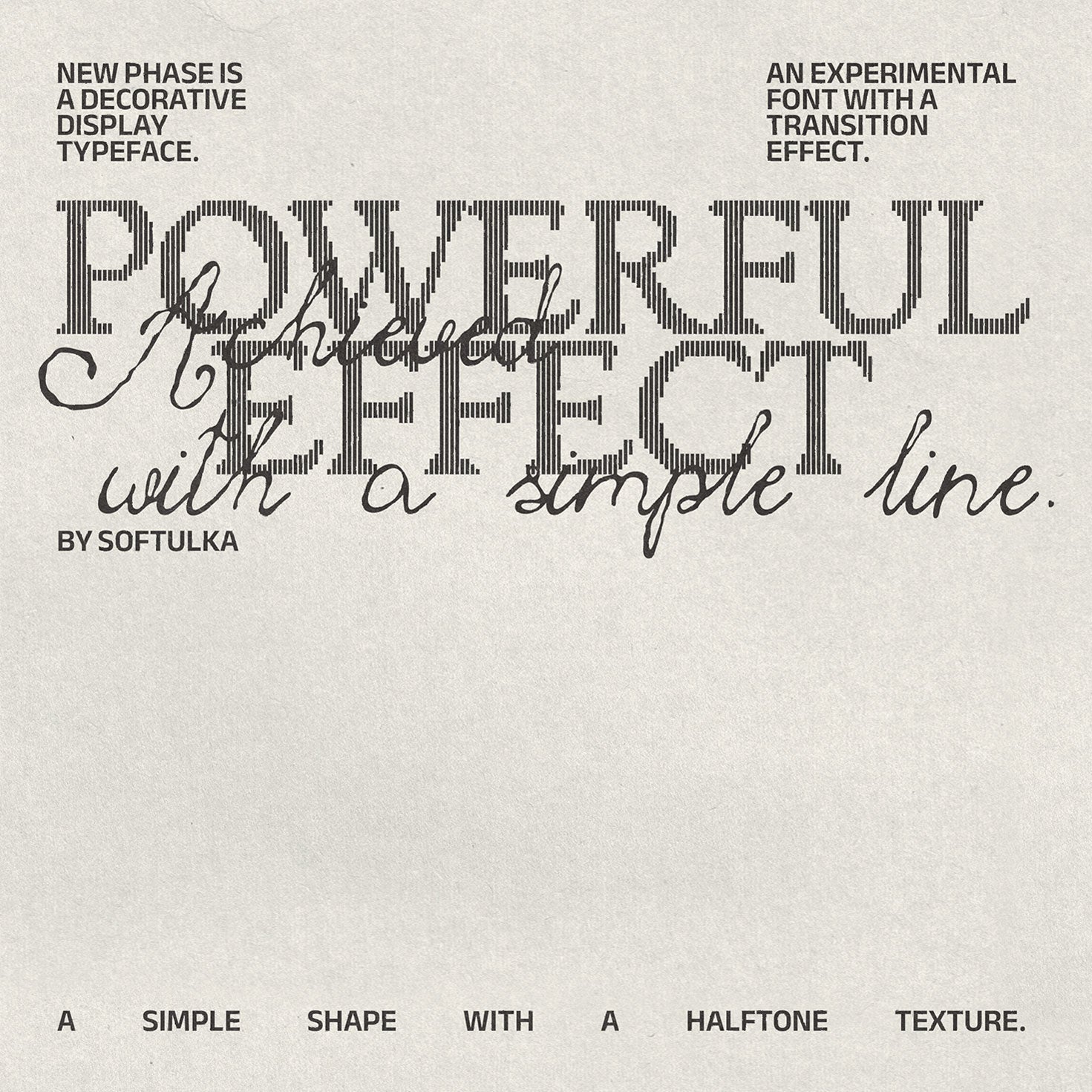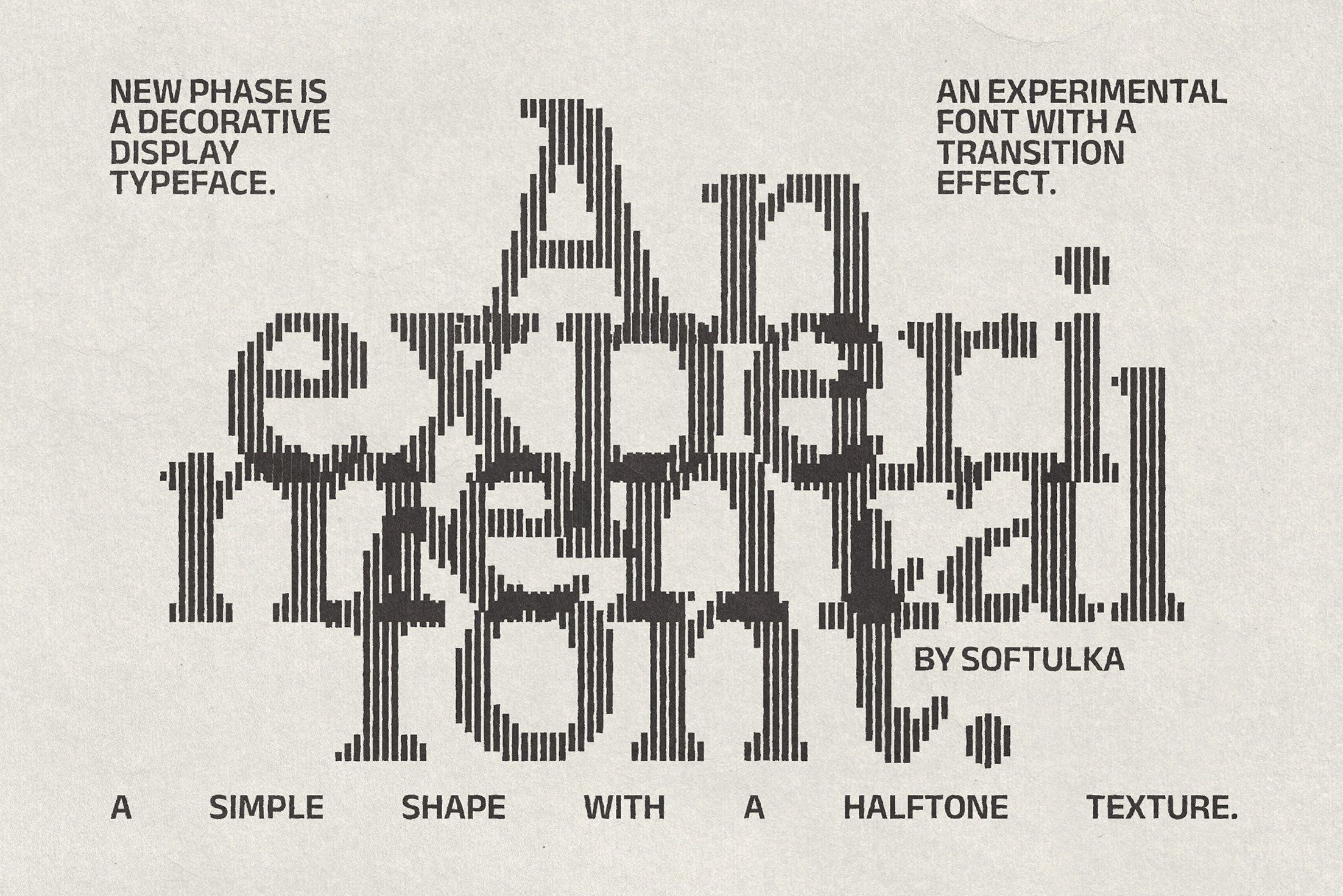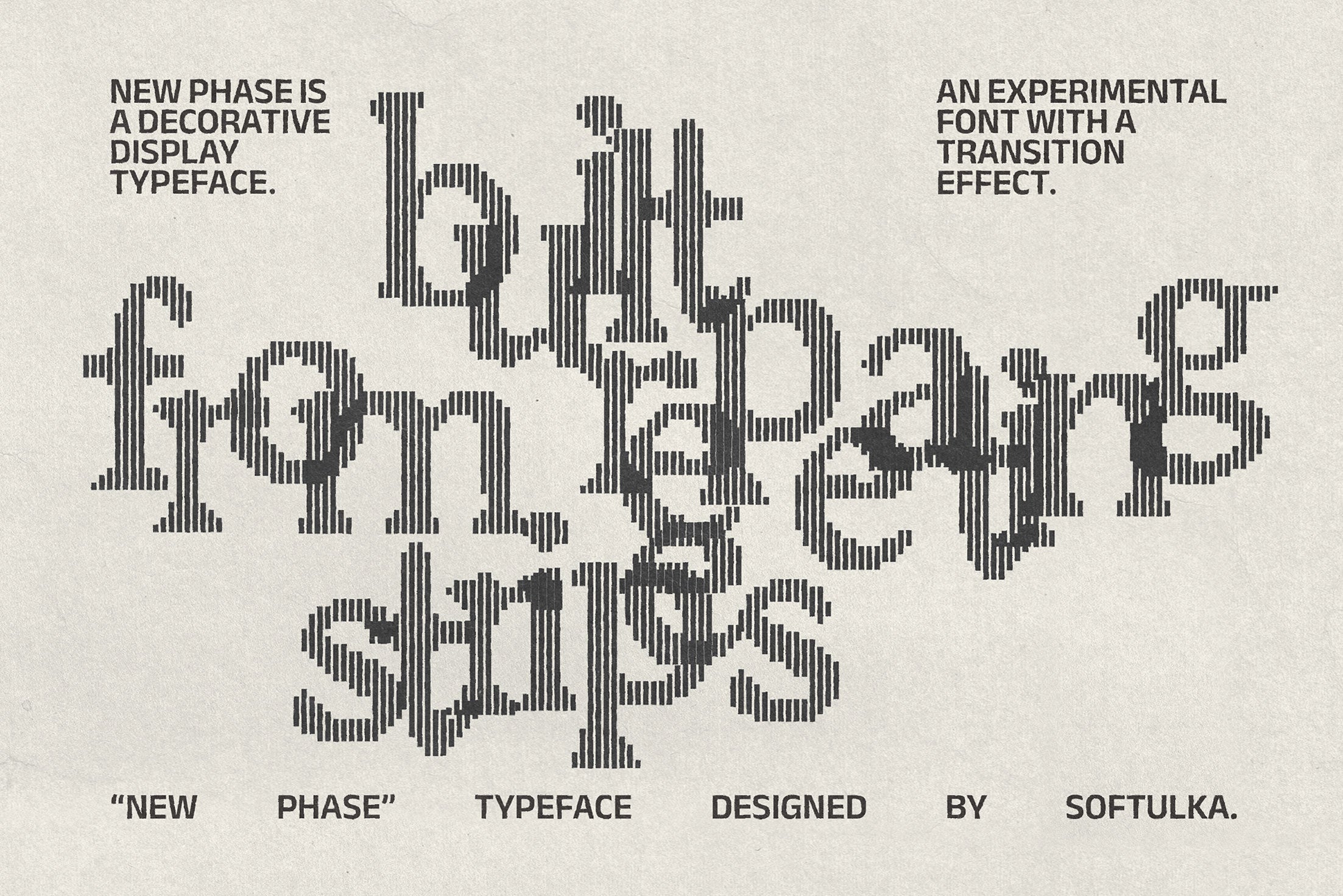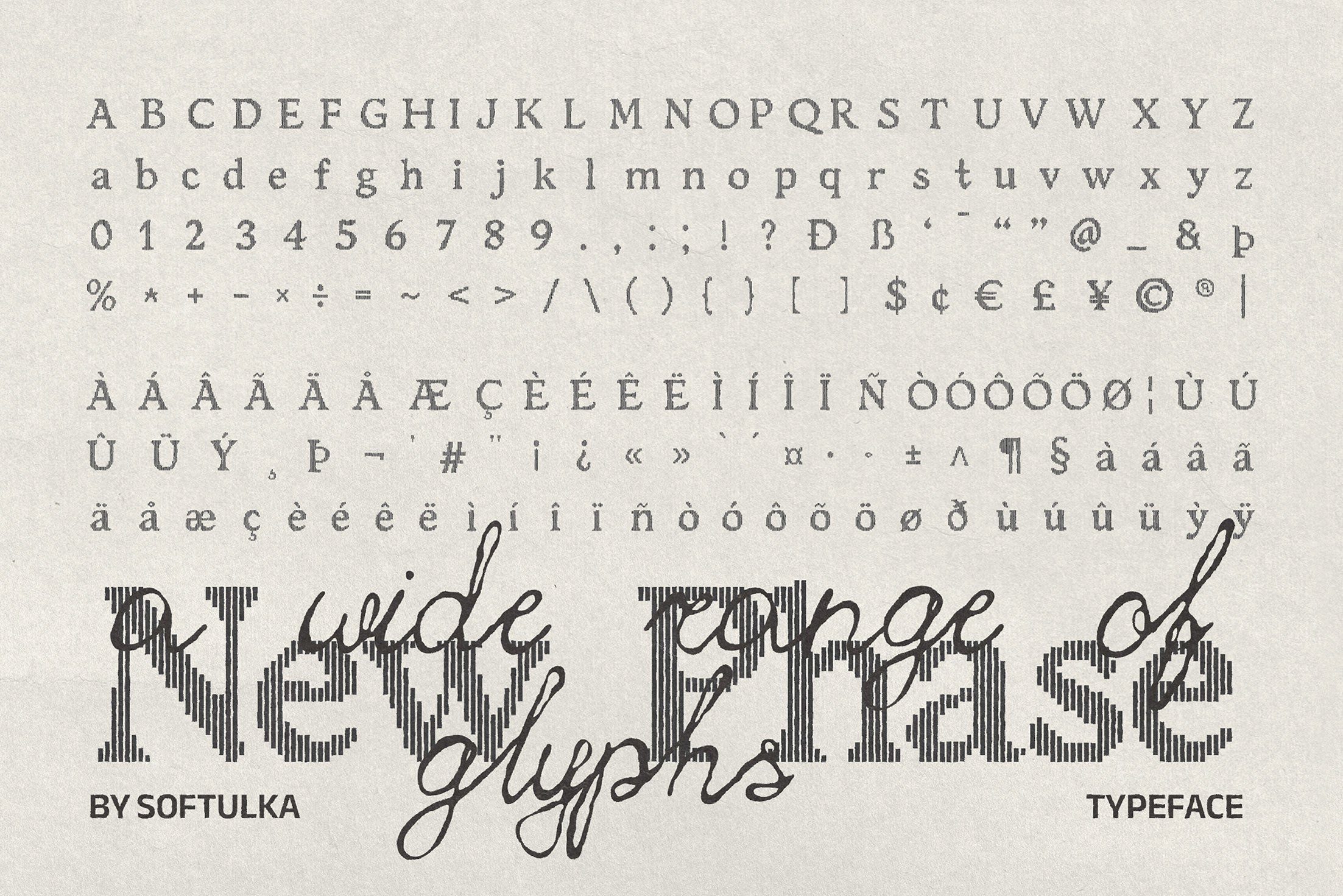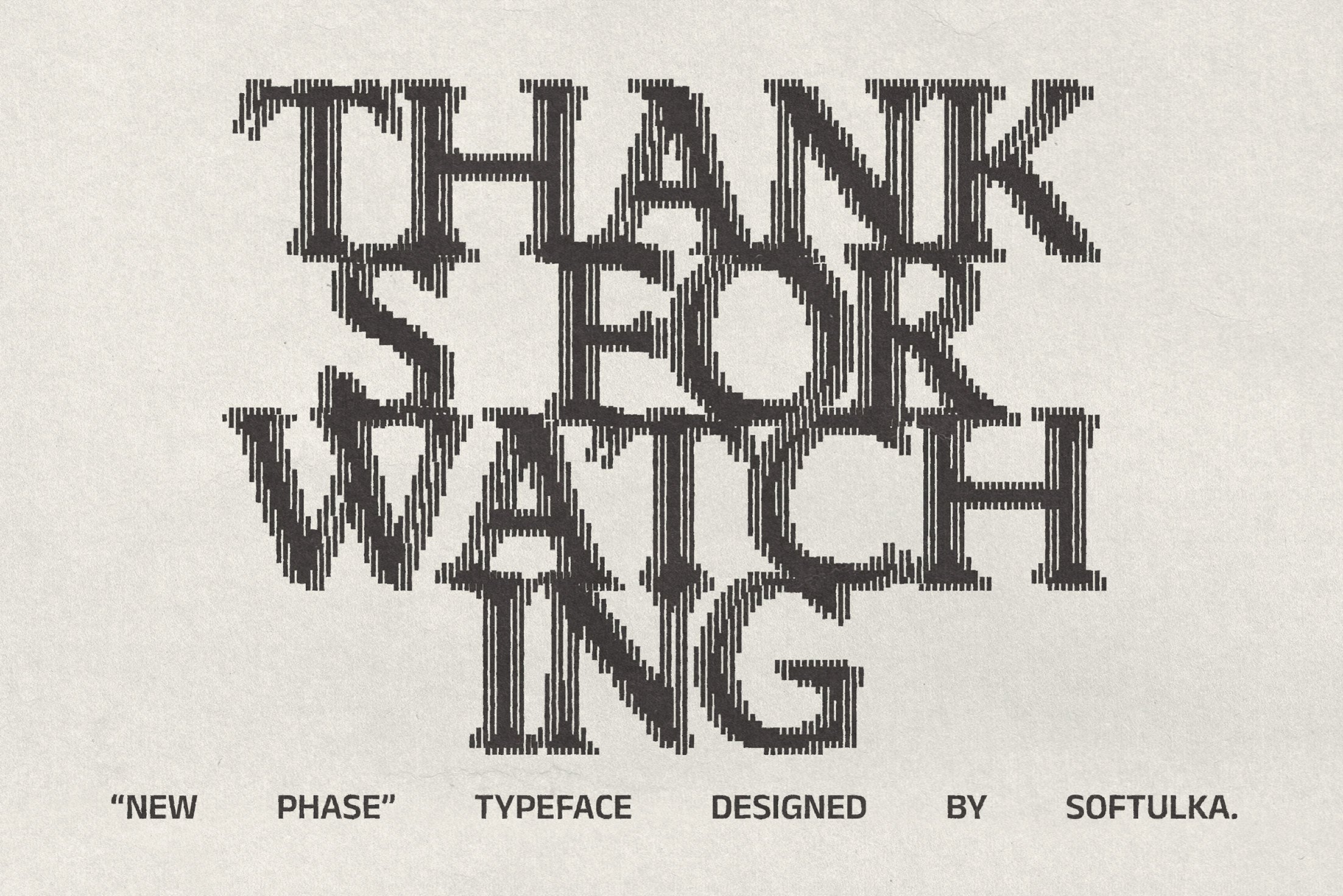
New Phase Typeface
New Phase is an experimental display serif that reinterprets classical typography through a contemporary architectural lens. Inspired by medieval inscriptions, monumental stone carvings, and rhythmic structural forms, every character is constructed from repeating vertical stripes of varying heights, creating a unique balance between historical elegance and modern visual experimentation.
Its distinctive construction generates a subtle optical movement that shifts as words and headlines grow larger, making typography itself become a graphic composition. Despite its unconventional appearance, New Phase maintains remarkable legibility while delivering a bold editorial presence.
Perfect for branding, luxury packaging, cultural identities, book covers, magazine layouts, posters, fashion campaigns, album artwork, and contemporary visual systems, the typeface brings together timeless craftsmanship and forward-thinking design in a single typographic voice.